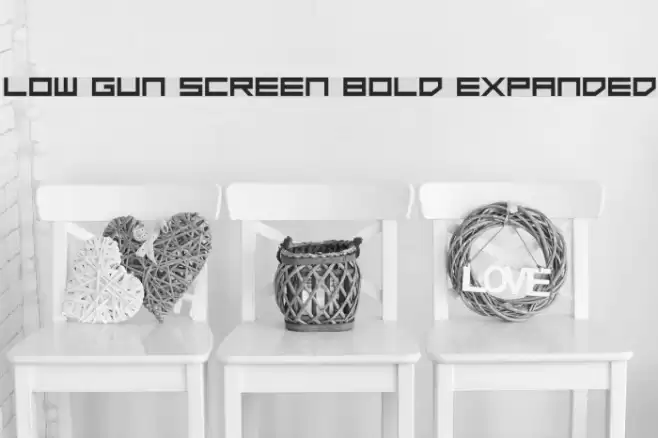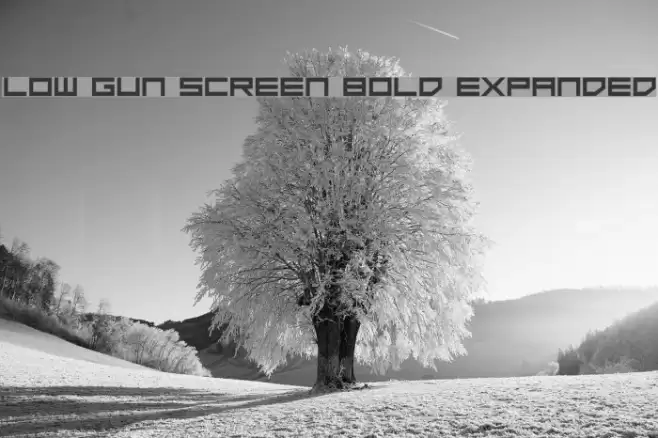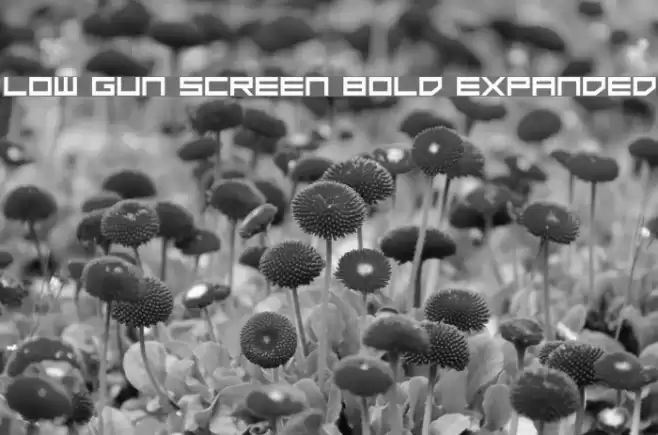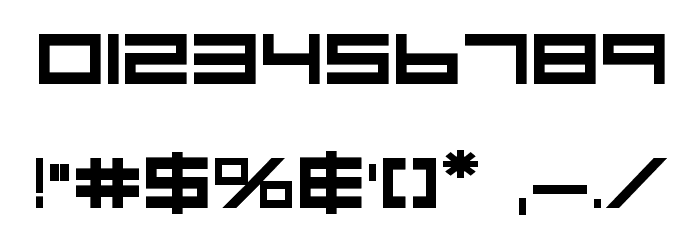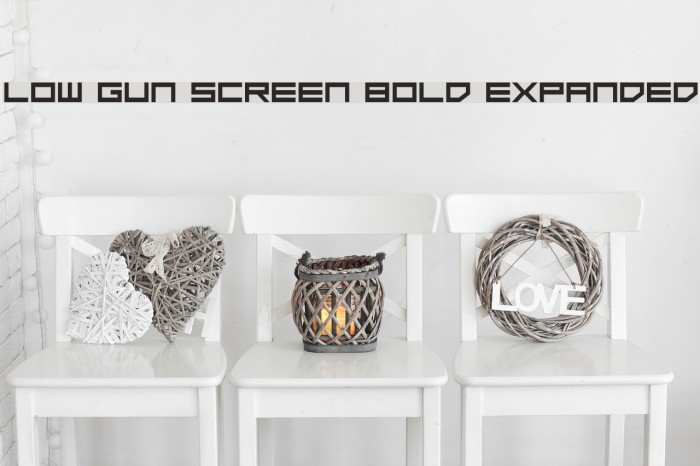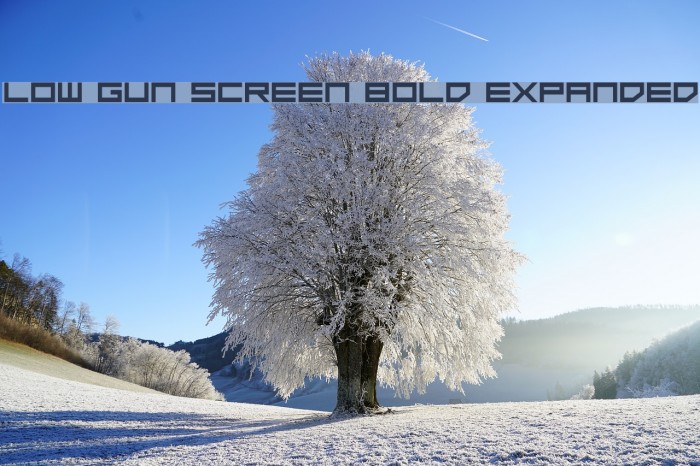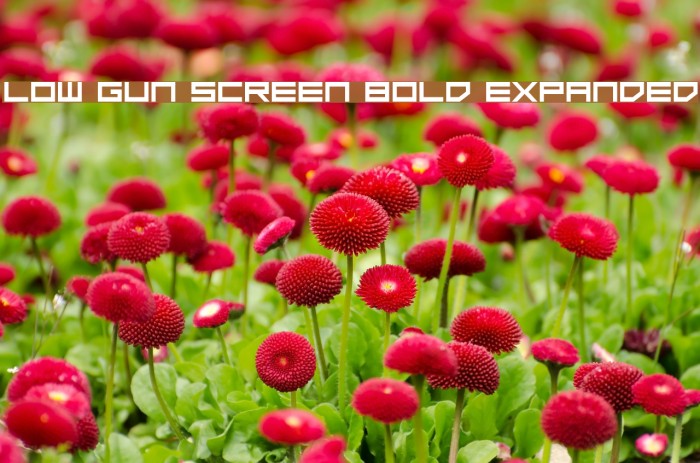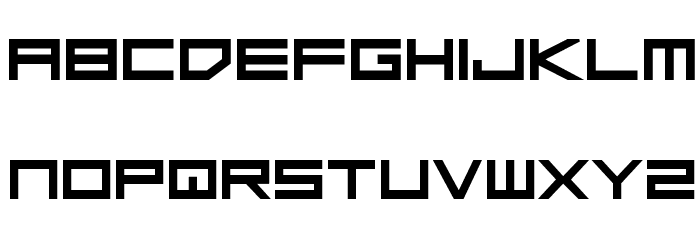
Low Gun Screen Bold Expanded Font
Low Gun Screen Bold Expanded Description
This font features a bold and expanded style with a futuristic and geometric design. The characters are constructed with sharp angles and straight lines, giving it a modern and tech-inspired appearance. The uppercase and lowercase letters maintain a consistent height, contributing to a uniform look. The numerals and special characters follow the same design principles, ensuring a cohesive aesthetic throughout. The font's expanded width and bold weight make it highly legible and impactful, suitable for attention-grabbing headlines and display purposes.
A bold, expanded, and geometric font with a futuristic style from Uncategorized fonts.
- Proposed Projects: Ideal for technology branding, sci-fi posters, video game titles, and modern advertising campaigns.